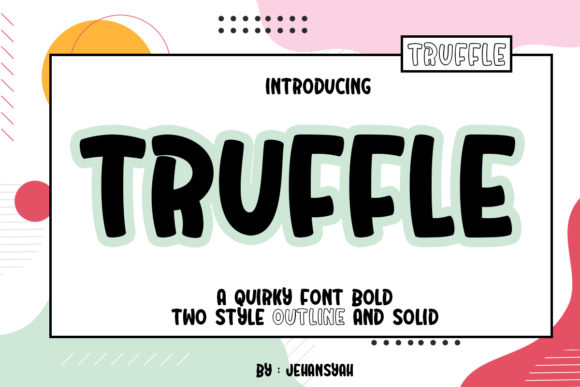
Welcome to the realm of Truffle Font, a display font that's an enchanting dance of playfulness and whimsy. Born from the creative mind of jehansyah251, Truffle isn't just a font; it's an experience, an expression of love, joy, and all things magical.
Picture this: a love poem penned in Truffle Font, each letter a whimsical stroke of affection, each word a tender embrace. Truffle dances across the page like a playful cherub, infusing your words with a charm that's impossible to resist.
With its bouncy curves and cheerful demeanor, Truffle Font is the perfect companion for children-themed designs. Let your imagination run wild as you create enchanting invitations, captivating posters, and magical storybooks that transport kids to a world of wonder and delight.
But Truffle Font's magic knows no bounds. It's equally at home in adult designs, bringing a touch of lightheartedness to greeting cards, wedding invitations, and social media posts. Its versatility is a testament to its exceptional design, making it a font that can adapt to any occasion, any mood, and any style.
So, dear poets, designers, and dreamers, let Truffle Font be your muse. Let it inspire you to create captivating designs that spark joy, ignite imaginations, and leave an unforgettable impression. Let Truffle Font be your ticket to a world where whimsy reigns supreme and love blooms in every letter.